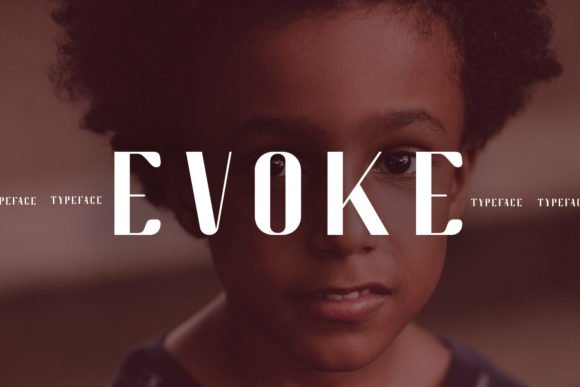
Unlock Your Creativity with Evoke Font
Have you ever stared at a blank canvas, desperate for inspiration to strike? The blank page can be daunting, but the moment you add a dash of creativity, magic happens. It’s that spark of imagination that sets your heart racing and your ideas flowing. For designers, this moment is the key to crafting something truly unique and breathtaking.
That’s where Evoke Font comes in – a modern and creative display font designed to push the boundaries of your imagination. This bold and atypical design is perfect for adding an extra layer of sophistication to your projects. With Evoke Font, you’ll be able to create visually stunning pieces that leave a lasting impression.
For designers, Evoke Font is a valuable tool in their creative arsenal. Its unique style allows them to think outside the box and experiment with new ideas, resulting in truly original and captivating designs. Whether you’re a seasoned pro or just starting out, Evoke Font is the perfect companion for your next creative project.
Evoke Font Key Features
- Font Family: Evoke is a sans-serif font family with multiple weights and styles, making it suitable for various design applications.
- Unique Characteristics: Evoke font features a unique blend of modern and minimalist design elements, making it stand out in various design applications.
- Language Support: Evoke font supports a wide range of languages, including Latin, Cyrillic, and Greek scripts, making it a versatile choice for global designs.
Evoke Font Review
As a designer, I was excited to try out the Evoke font, but my experience was a mixed bag. On the plus side, ✨ Evoke has a unique, modern aesthetic that can really make your designs stand out. It’s perfect for headlines and titles, adding a touch of sophistication and elegance. The font also comes in a range of weights, making it versatile for different design needs.
One of the things I like about Evoke is its ✨ friendly readability. The font is designed to be easy on the eyes, making it perfect for long blocks of text. It’s also highly customizable, with plenty of options for adjusting line height, letter spacing, and more.
- ⚠️ Limited language support: Unfortunately, Evoke doesn’t support many non-Latin scripts, which can be a problem for designers working on international projects.
- ⚠️ Not ideal for body text: While Evoke is great for headlines, it’s not the best choice for body text. The font can start to feel overwhelming if used extensively.
- ⚠️ Some kerning issues: In certain combinations, the letters in Evoke can look a bit cramped or uneven. This can be a problem for designers who want a seamless reading experience.
Overall, I’d say Evoke is a solid choice for designers who want a modern, eye-catching font for their headlines and titles. However, it’s not a one-size-fits-all solution, and designers should be aware of its limitations. With some careful consideration and use, Evoke can be a great addition to your design toolkit.
Getting the Most Out of Evoke Font
For the best results, use the Evoke Font in combination with bold and italic styles to create emphasis.
Experiment with different font sizes to create visual hierarchy.
Use the font in conjunction with other design elements, such as images and colors, to create a cohesive look.
The Evoke Font is suitable for a variety of applications, including:
– Headings and titles
– Body text
– Logos and branding
– Print and digital materials